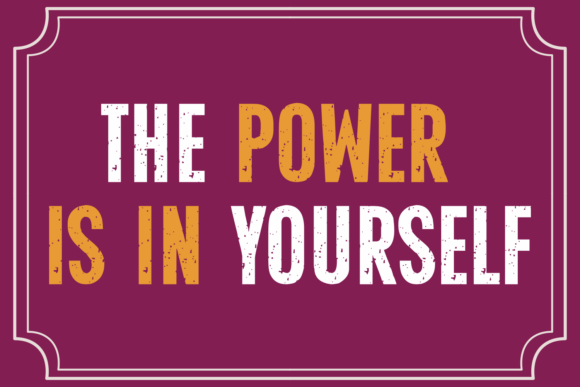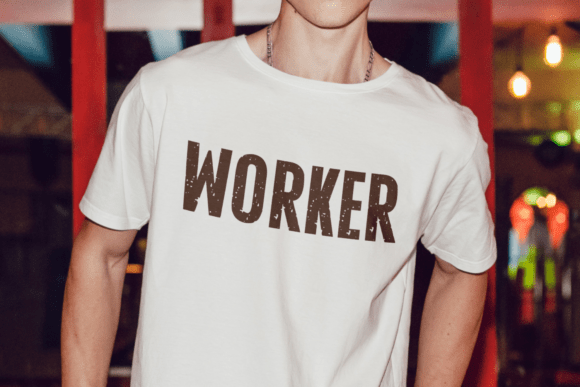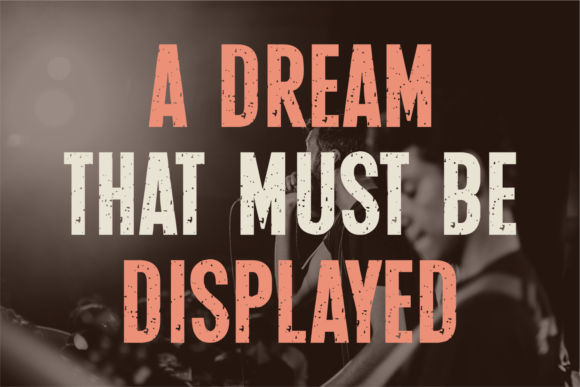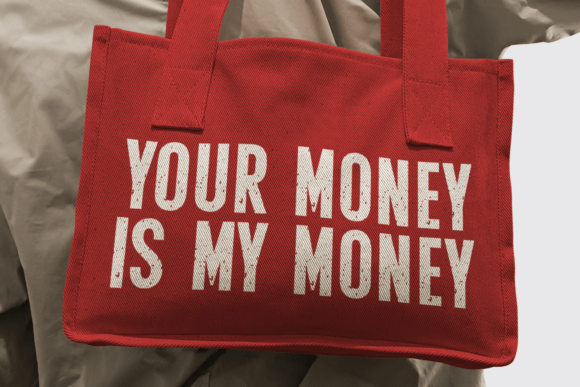
Introducing Chunky Texture: The Ultimate Grunge Font for Bold Designs
Are you tired of using the same old fonts in your designs? Look no further than Chunky Texture, a grunge font that embodies the perfect blend of grit, character, and handcrafted style. This bold, distressed texture font is sure to make a statement in any design, from industrial projects to streetwear branding.
The Essence of Chunky Texture
Chunky Texture is more than just a font – it’s a signature style for masculine brands that want to exude an unabashed sense of ruggedness and authenticity. Its bold, distressed texture speaks to a sense of hardiness and robustness that’s perfect for designs that require a strong, industrial edge. Whether you’re working on a project for gym apparel, automotive branding, or outdoor signage, Chunky Texture is the perfect choice.
One of the best things about Chunky Texture is its versatility. This font can be used in a wide range of design applications, from coffee packaging to tote bag mockups, and even barbershop logos. Its retro stamp feels at home in urban settings, adding a touch of vintage charm to any design. Imagine using Chunky Texture to create bold, eye-catching posters for an automotive brand or to add a rugged edge to a streetwear label.
Design Possibilities
The design possibilities with Chunky Texture are endless. Here are just a few ideas to get you started:
- Gym Apparel: Use Chunky Texture to create bold, motivational quotes on gym apparel or to add a touch of ruggedness to athletic wear.
- Automotive Branding: Add a touch of vintage charm to an automotive brand with Chunky Texture’s distressed texture.
- Coffee Packaging: Transform coffee packaging into an eroded artwork with Chunky Texture’s bold, rugged lettering.
- Tote Bag Mockups: Use Chunky Texture to add a statement to tote bag mockups or to create bold, eye-catching designs for streetwear brands.
- Barbershop Logos: Add a rugged edge to a barbershop’s logo with Chunky Texture’s distressed texture.
What Makes Chunky Texture Special?
So, what makes Chunky Texture so special? Here are just a few things that set it apart:
- Handcrafted Style: Chunky Texture has a distinctly handcrafted feel that’s perfect for designers who want to add a touch of authenticity to their designs.
- Distressed Texture: The font’s distressed texture gives it a worn, rugged look that’s perfect for designs that require a strong, industrial edge.
- Bold and Distinctive: Chunky Texture is a bold, distinctive font that’s sure to make a statement in any design.
In conclusion, Chunky Texture is a grunge font that’s perfect for designers who want to add a touch of grit, character, and handcrafted style to their designs. Its bold, distressed texture and versatility make it a great choice for a wide range of design applications, from industrial projects to streetwear branding. Whether you’re a designer or a crafter, Chunky Texture is a font that’s sure to inspire your next project.